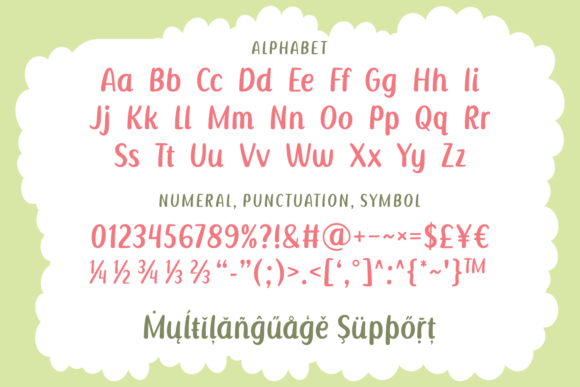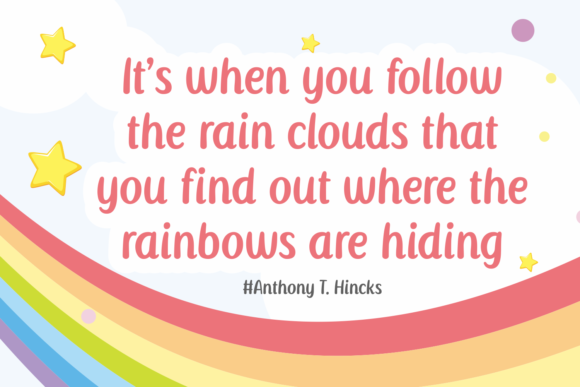
Twilight Rainbow Font
db-ku.com - Script & Handwritten -- Twilight Rainbow is a clean and adaptable handwritten font. Whatever the topic, this font will be a wonderful asset to your font library, as it has the potential to enhance any creation.